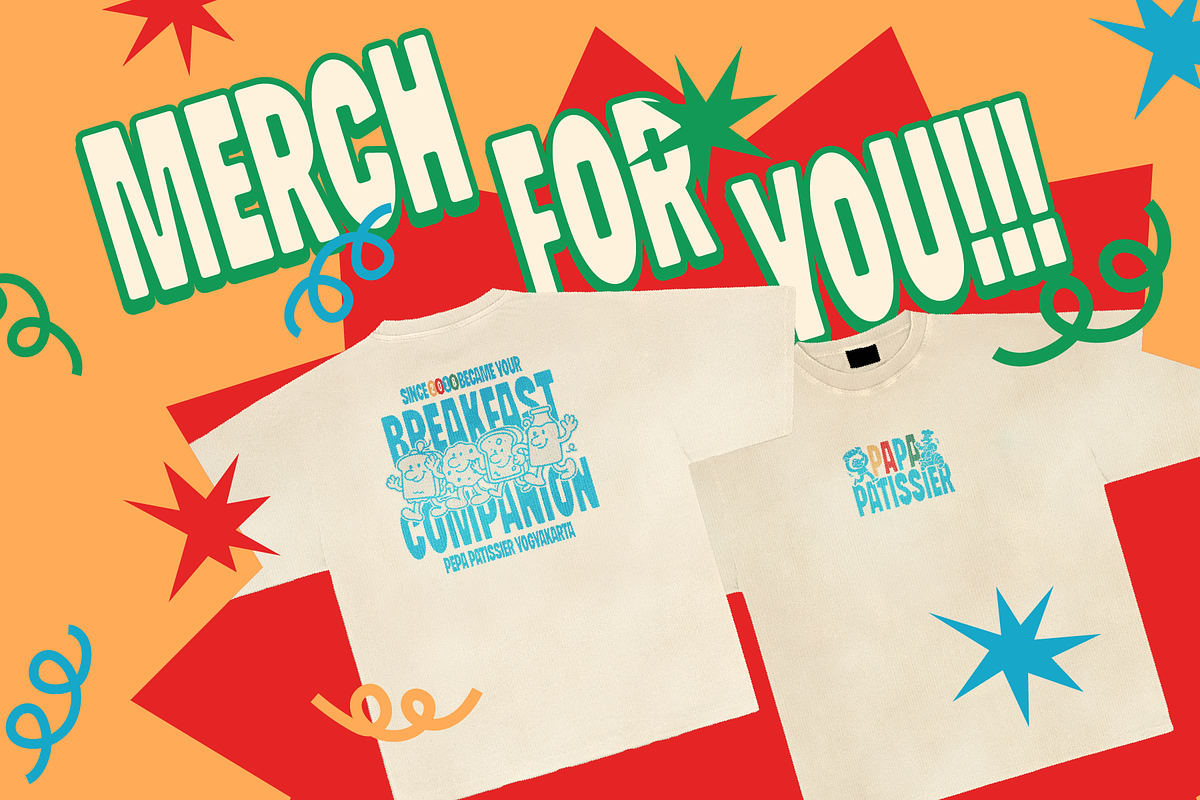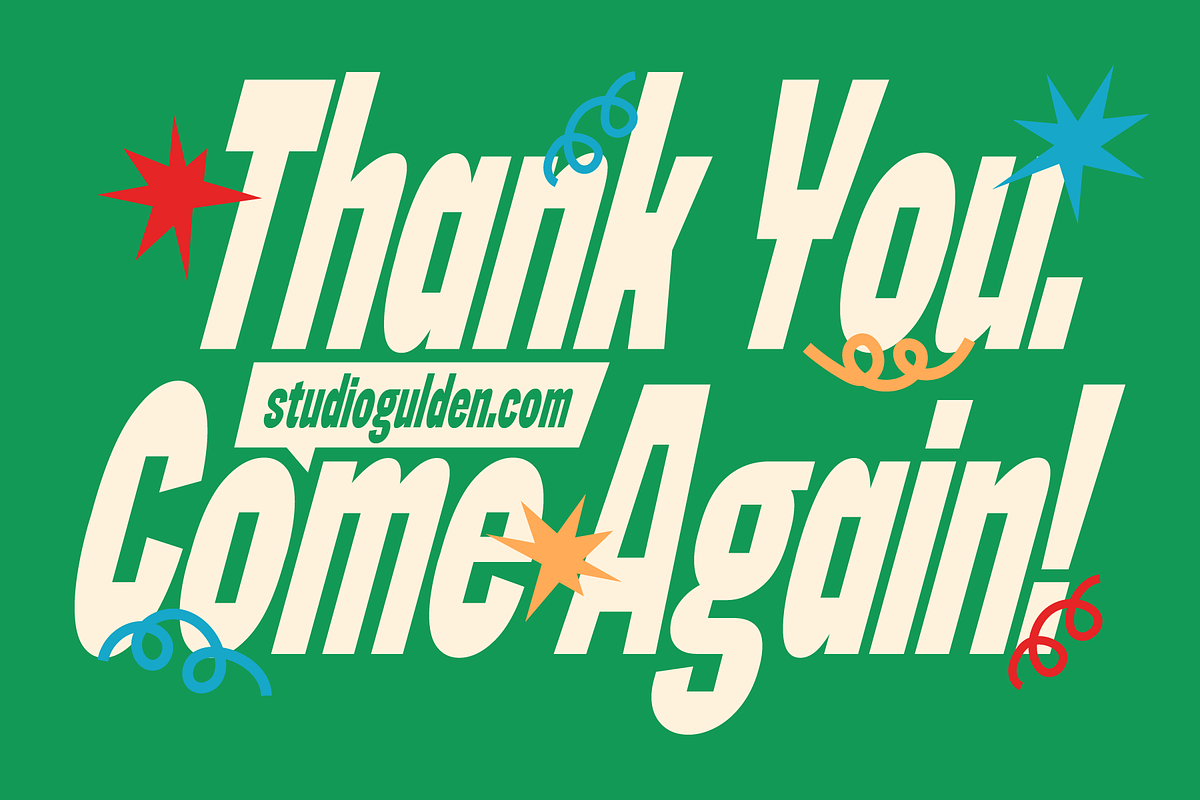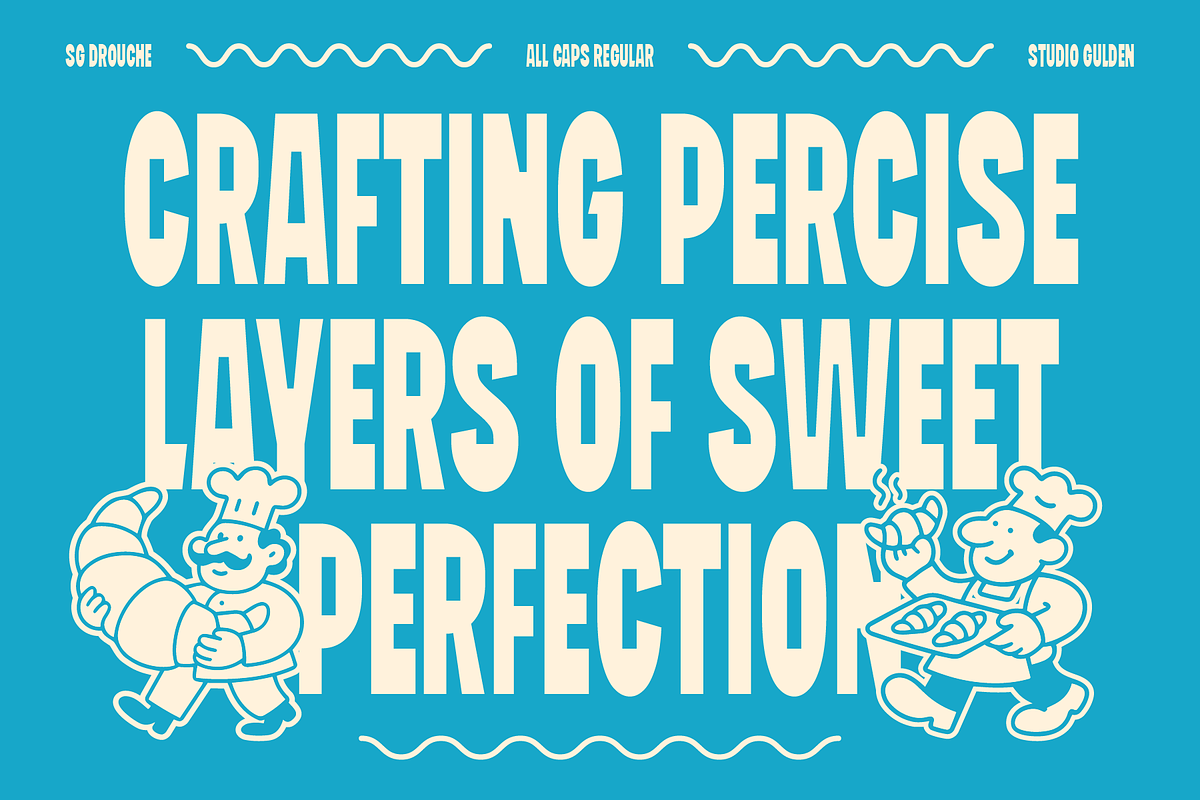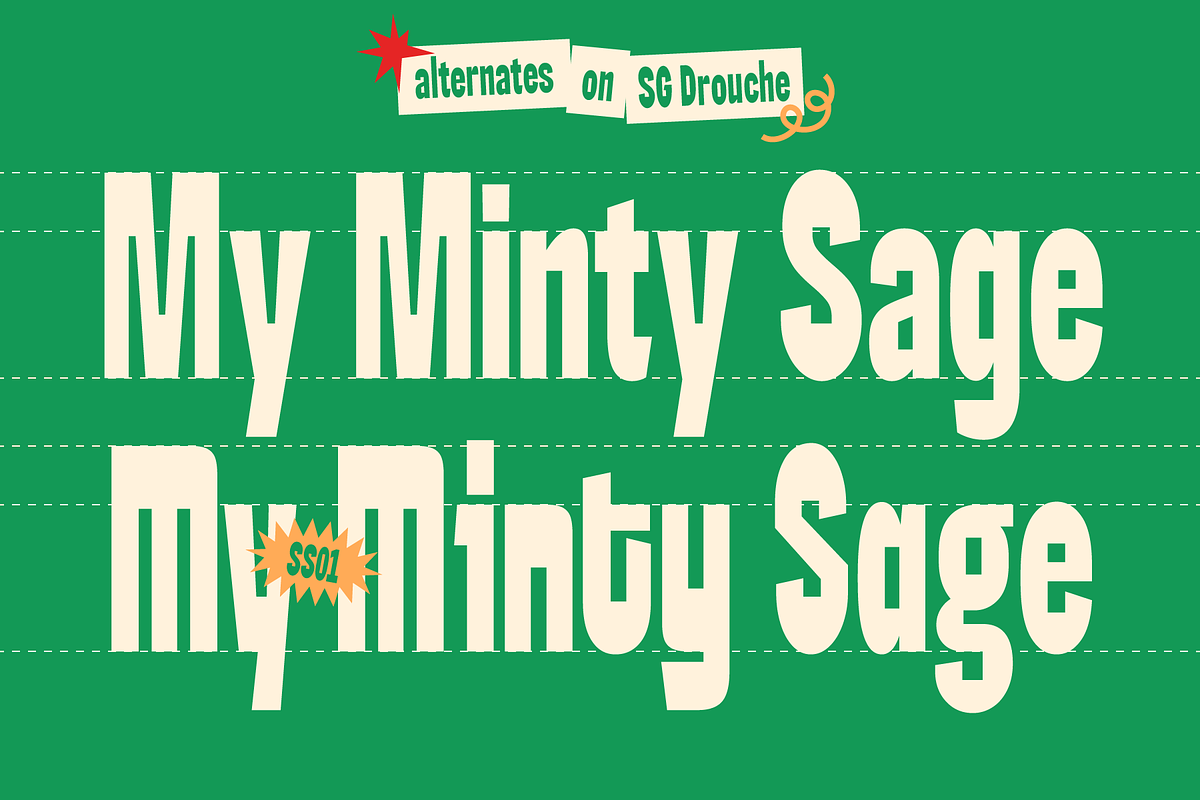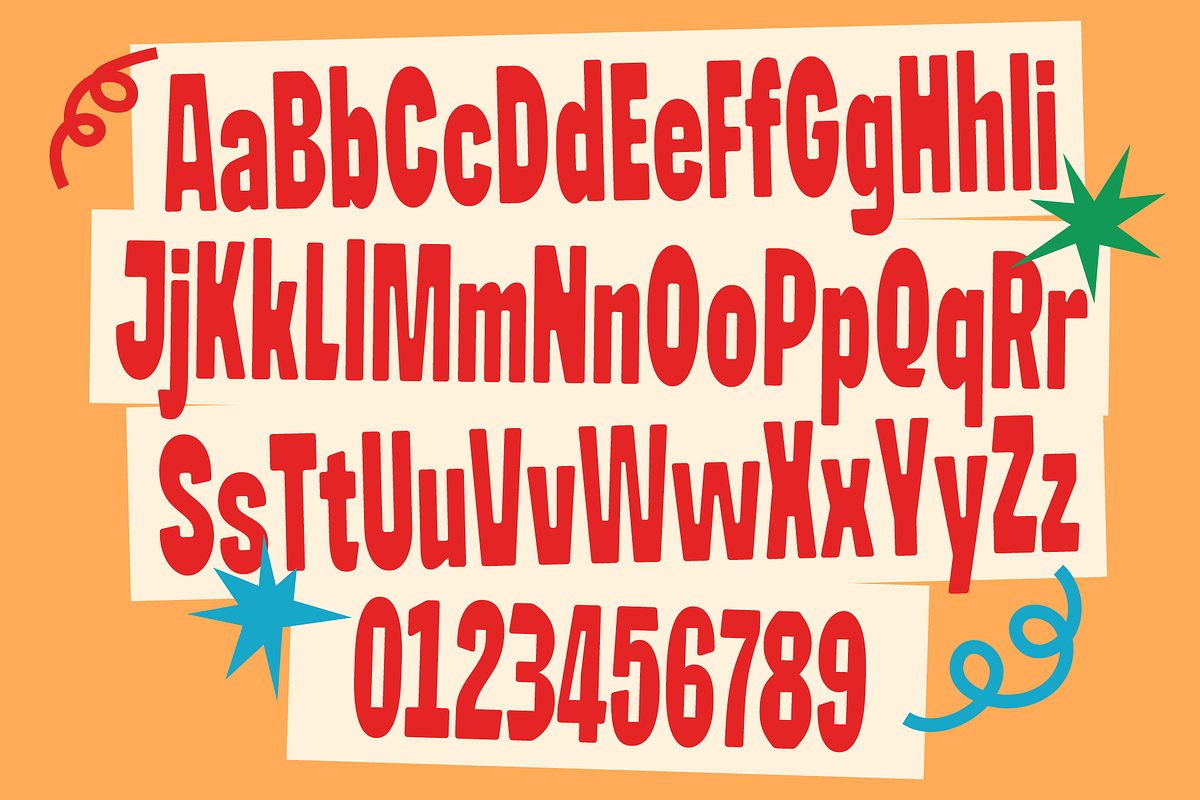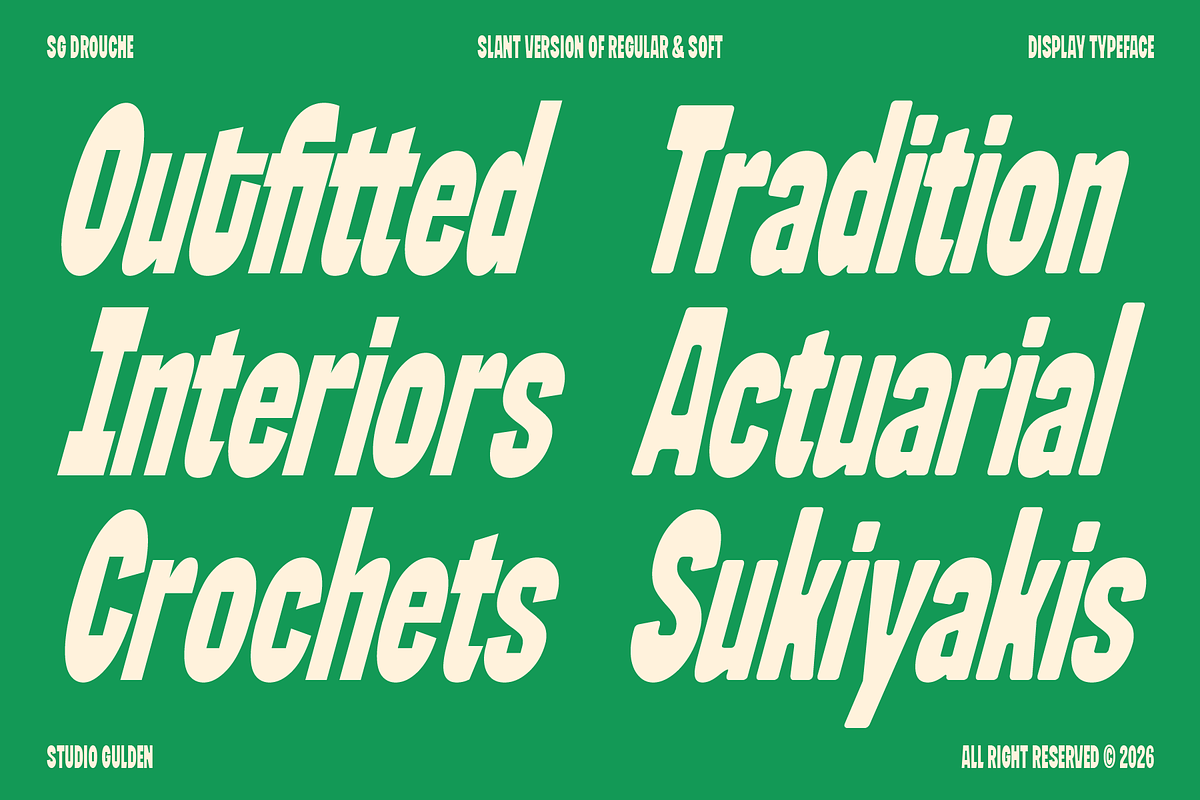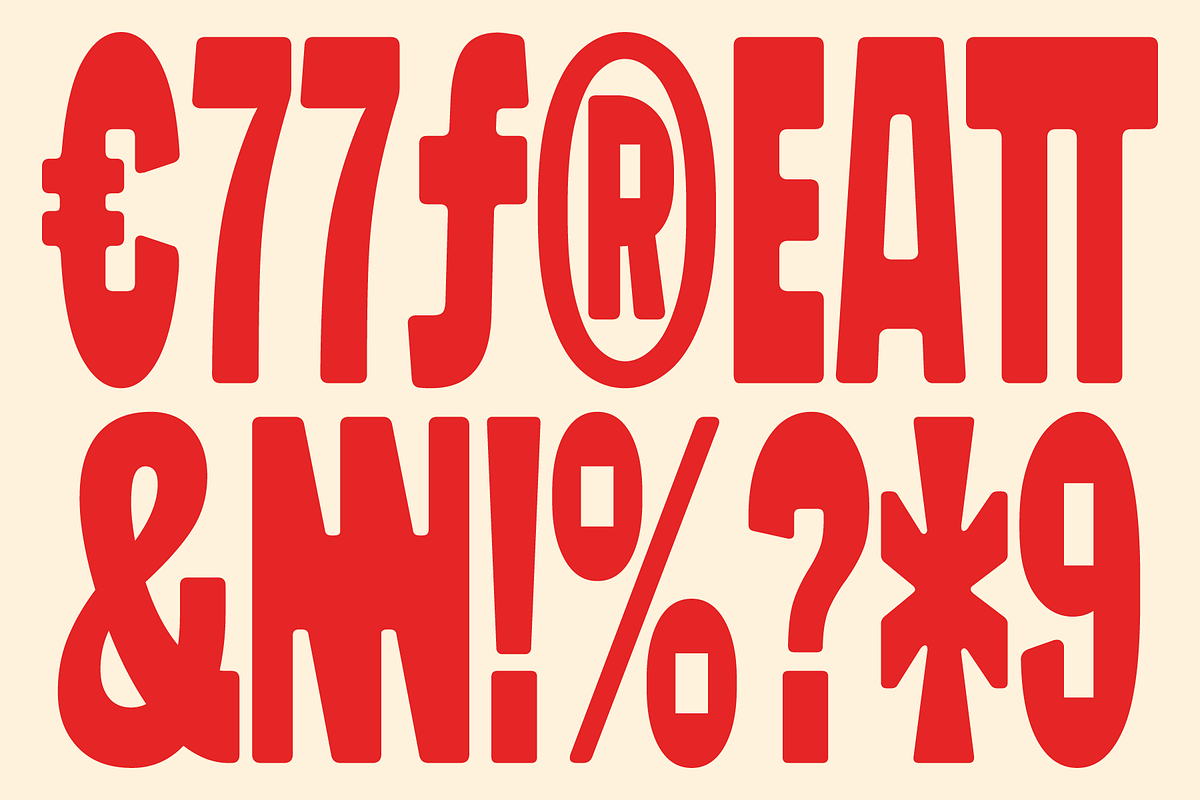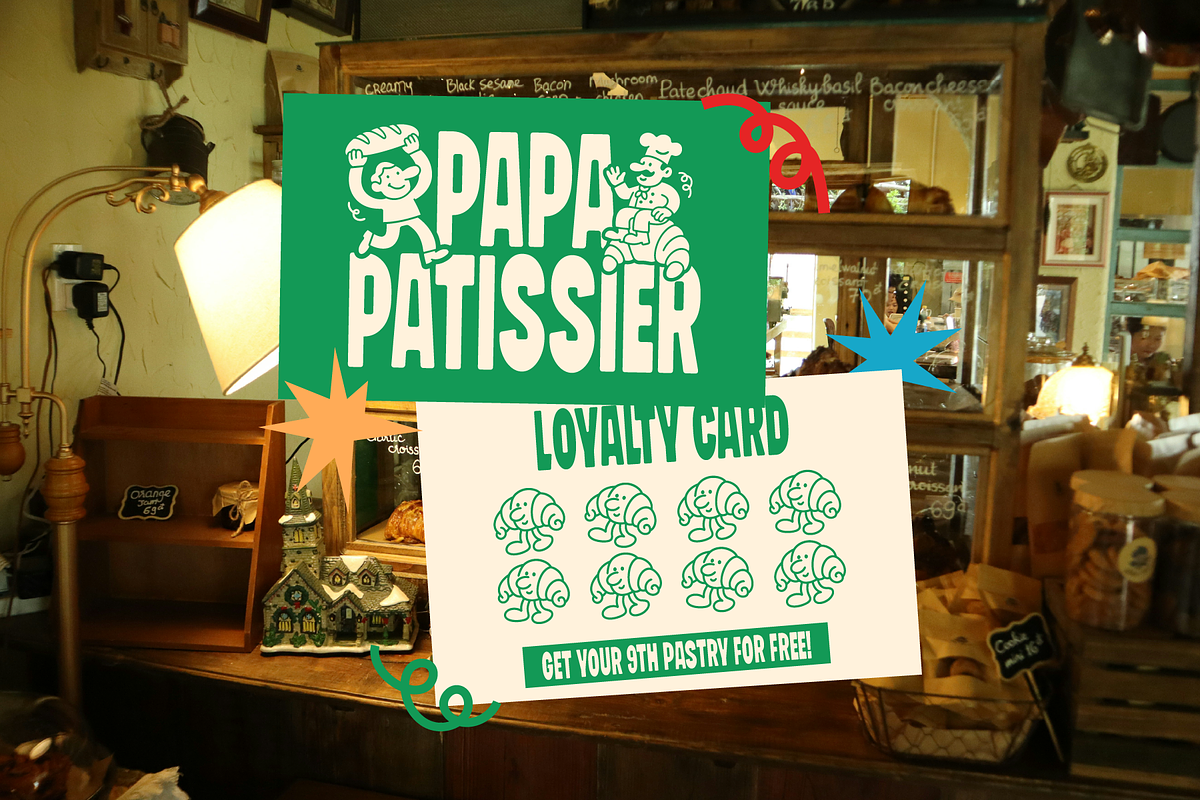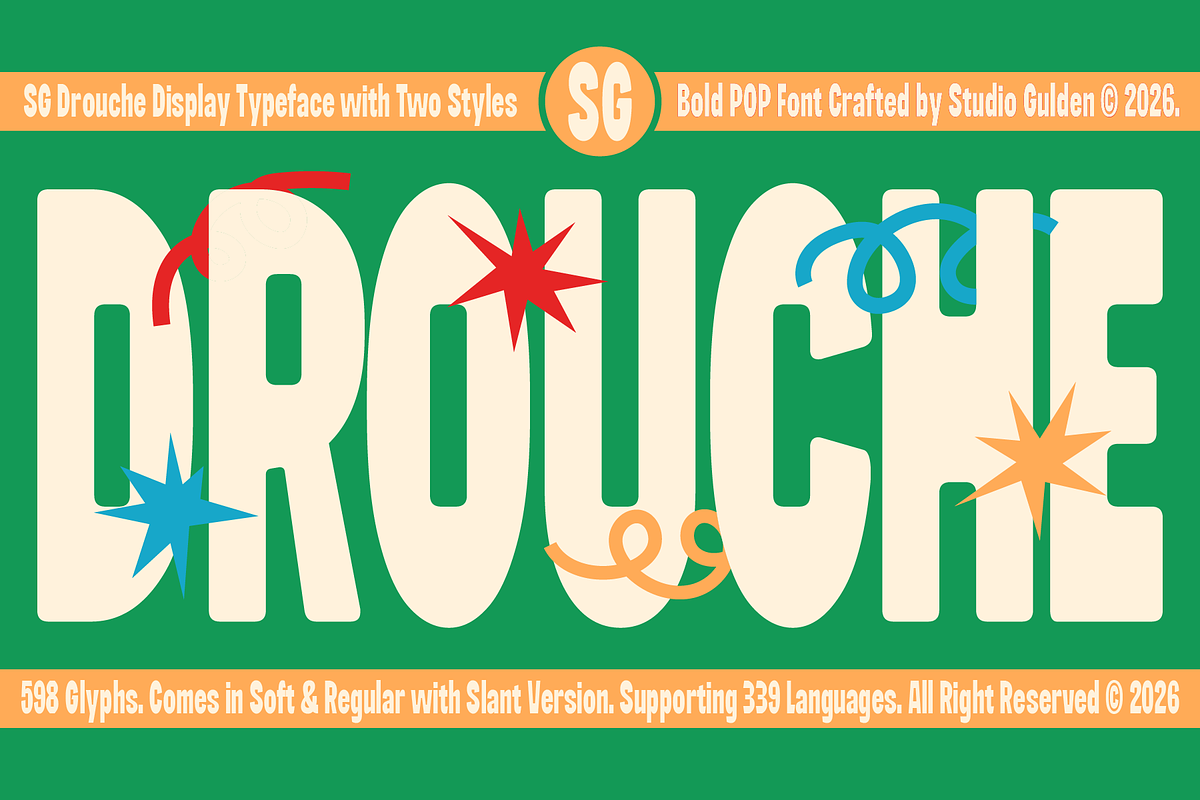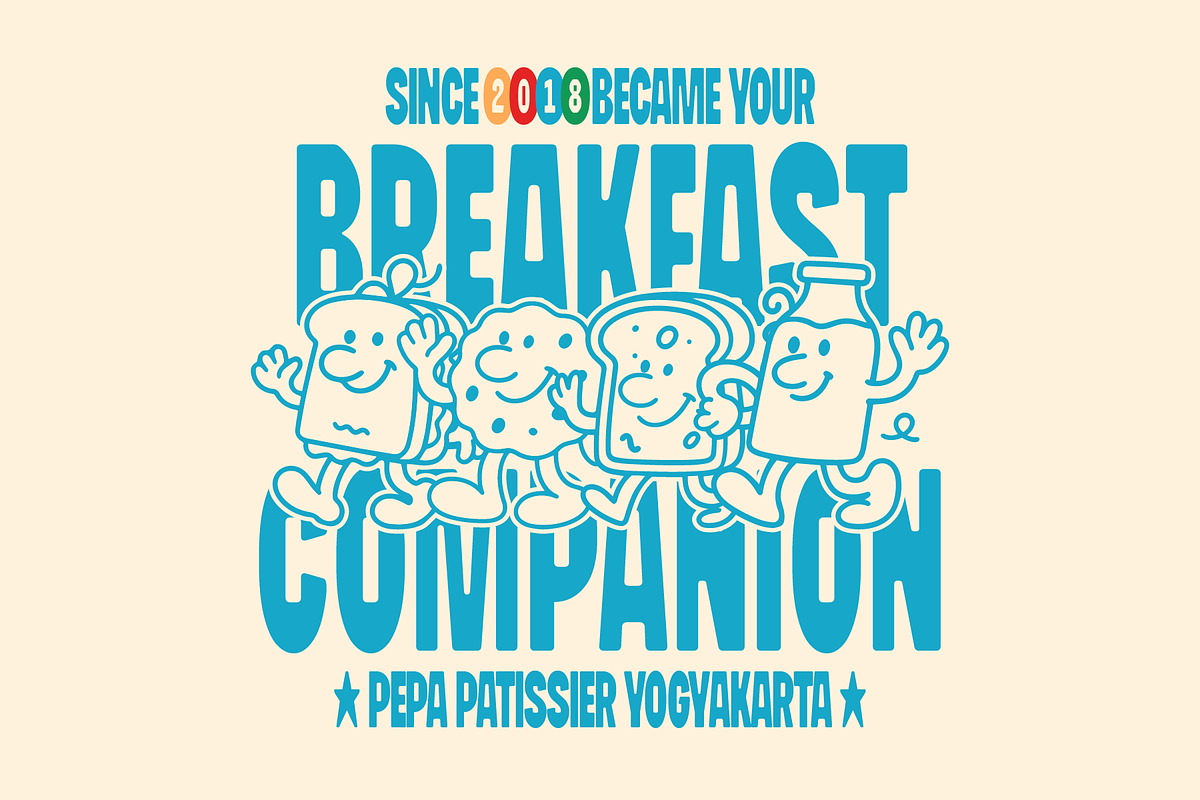
SG Drouche
SG Drouche is a display typeface built for the edge of modern design. It seamlessly bridges the gap between massive retro-pop shapes and the sharp, aggressive energy of contemporary brutalism. This font is a powerhouse for designers who need to dominate a layout with sheer visual weight and a raw, industrial attitude. If you are looking to break away from the polished and the predictable, SG Drouche provides the heavy-duty toolkit required to make an unignorable statement.
Crafted by Studio Gulden, SG Drouche is a masterclass in controlled chaos. Its construction is defined by ultra-thick stems and razor-thin counters that create a high-contrast, rhythmic vibration. The "Regular" and "Soft" styles offer a choice between clinical precision and a slightly more organic feel, while the "Slant" versions introduce a sense of high-velocity movement.